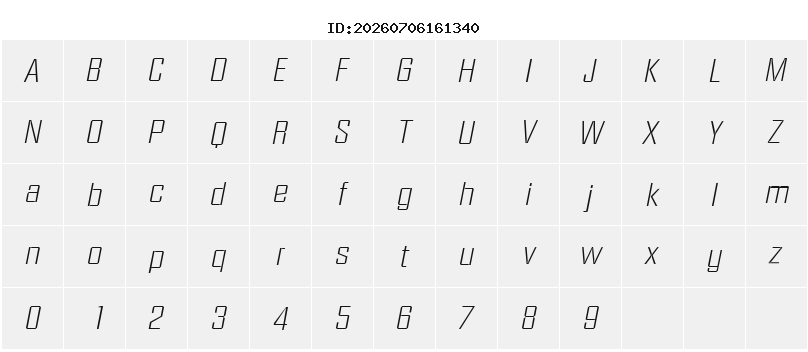
DiamanteLH Preview
• Font Name: DiamanteLH
• Font ID: Altsys Fontographer 3.5 DiamanteLH Italic
• Full Font Name: DiamanteLH Italic
• Version: Altsys Fontographer 3.5 13.05.1994
• PostScript Name: DiamanteLH-LightItalic
• Character Count: 206
About DiamanteLH.ttf
DiamanteLH.ttf is a modern, elegant sans-serif font designed for ultimate readability and visual harmony. Perfect for branding, headlines, web design, and print materials.